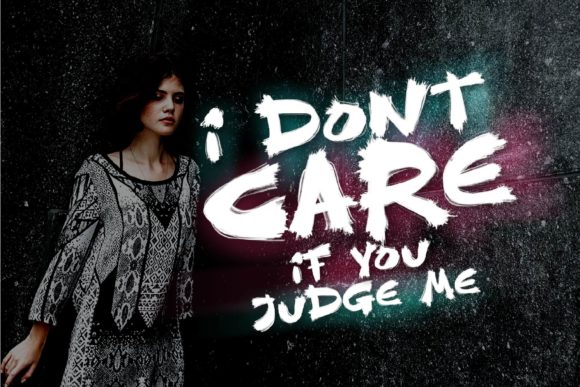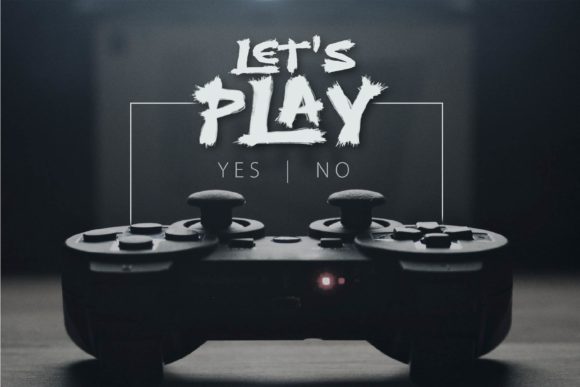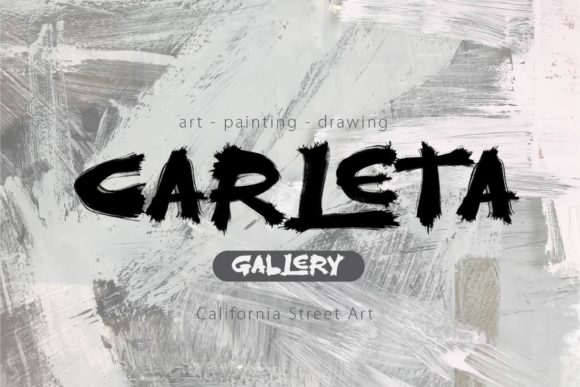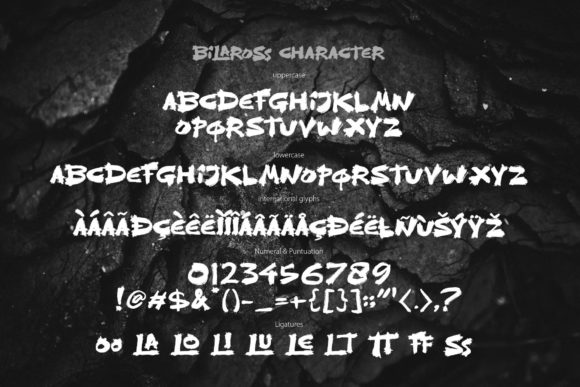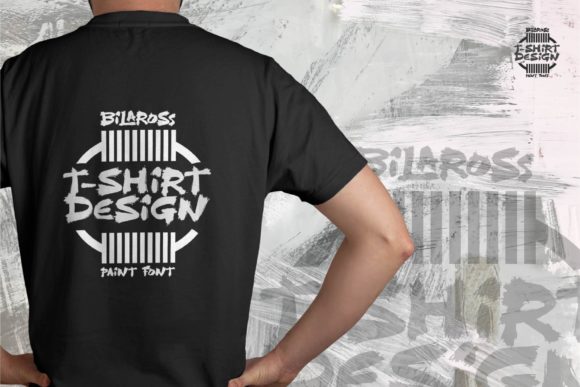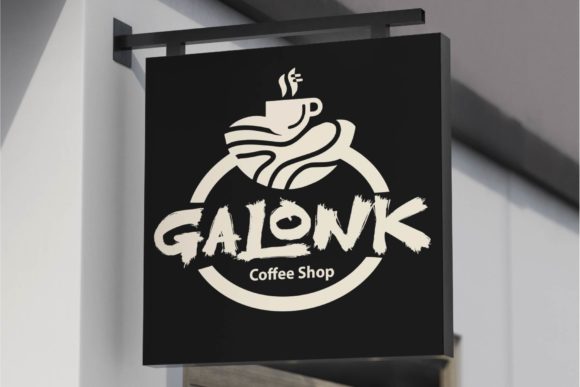
Bilaross Font: The Ultimate Choice for Designers and Crafters
In the world of typography, fonts play a crucial role in conveying the tone and personality of a design. For designers and crafters looking for a unique and eye-catching font, Bilaross Font is an excellent choice. This cool, brushed, and quirky display font is perfect for a wide range of design projects, from t-shirts and sportswear to logos, advertisements, and clothing.
What is Bilaross Font?
Bilaross Font is a distinctive display font that boasts a brushed and quirky appearance. Its unique texture and style make it stand out from other fonts, adding a touch of personality to any design. The font’s cool and edgy vibe makes it ideal for designers and crafters who want to create bold and eye-catching designs.
Key Features of Bilaross Font
- Brushed Texture: Bilaross Font features a brushed texture that gives it a unique and organic feel.
- Quirky Style: The font’s quirky style makes it perfect for designs that require a touch of personality.
- Display Font: Bilaross Font is a display font, making it ideal for headlines, titles, and other prominent design elements.
- Versatile: The font is versatile and can be used for a wide range of design projects, from t-shirts and sportswear to logos and advertisements.
Use Cases for Bilaross Font
Bilaross Font is suitable for a variety of design projects, including:
- T-Shirts and Apparel: The font’s cool and edgy vibe makes it perfect for t-shirts, hoodies, and other apparel.
- Sportswear: Bilaross Font is ideal for sportswear designs, such as jerseys, hats, and bags.
- Logos and Branding: The font’s unique texture and style make it suitable for logos, business cards, and other branding materials.
- Advertisements: Bilaross Font can be used to create eye-catching advertisements, including billboards, flyers, and brochures.
- Clothing and Accessories: The font can be used to create designs for clothing and accessories, such as shoes, bags, and hats.
Why Choose Bilaross Font?
There are several reasons why designers and crafters should choose Bilaross Font for their design projects:
- Unique Style: Bilaross Font has a unique and quirky style that sets it apart from other fonts.
- Versatility: The font is versatile and can be used for a wide range of design projects.
- Easy to Read: Despite its quirky style, Bilaross Font is easy to read, making it perfect for headlines and titles.
- High-Quality: The font is of high quality, ensuring that it will look great in any design.
Tips for Using Bilaross Font
Here are some tips for using Bilaross Font in your design projects:
- Use it as a Headline: Bilaross Font is perfect for headlines and titles, so use it to grab attention.
- Experiment with Colors: The font looks great in bold colors, so experiment with different colors to find the one that works best for your design.
- Pair it with Other Fonts: Bilaross Font can be paired with other fonts to create a unique and interesting design.
- Use it for Branding: The font’s unique style makes it perfect for branding, so use it to create a memorable logo or business card.
In conclusion, Bilaross Font is a cool, brushed, and quirky display font that is perfect for designers and crafters looking for a unique and eye-catching font. Its versatility, unique style, and high-quality make it suitable for a wide range of design projects, from t-shirts and sportswear to logos and advertisements. By following the tips outlined above, designers and crafters can get the most out of Bilaross Font and create stunning designs that grab attention.